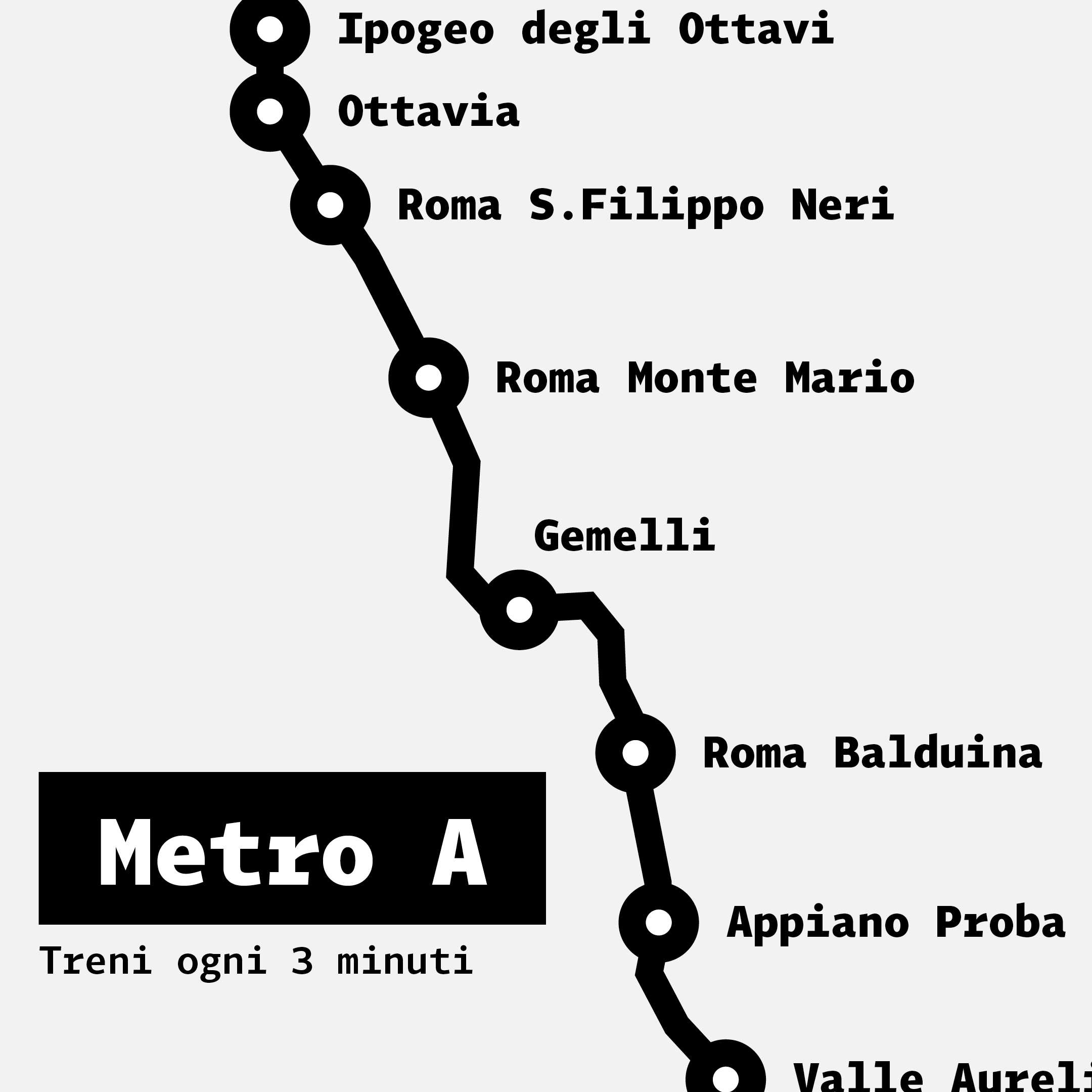
Tabac Mono
Every monospaced typeface is, by its very nature, somewhat peculiar. The need to fit all characters of the alphabet into a predetermined, fixed width generally resists efforts to achieve even typographic color and perfectly balanced letter pairs. Traditionally wide and dense capitals are compressed to the maximum, while narrow open letters are equipped with pronounced serifs to at least partially compensate for their excessive lightness. The result is a hybrid alphabet that may not possess perfect elegance, yet has its own distinctive charm.
Despite being fully aware of all inherent constraints, Tabac Mono represents an atypical approach to the problem. In addition to a well-proven character construction rooted in the humanist tradition, it offers a range of sixteen styles, including true italics and small capitals.
Tabac Mono expands the expressive possibilities of the other typefaces in the Tabac superfamily.